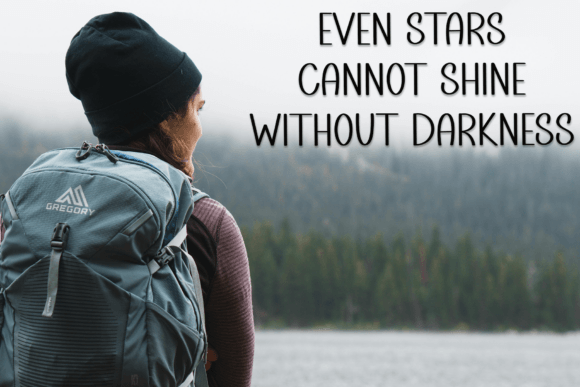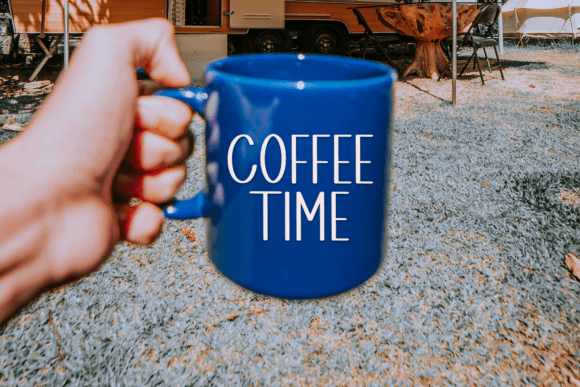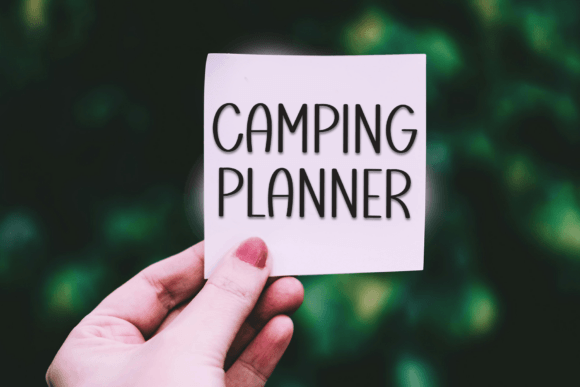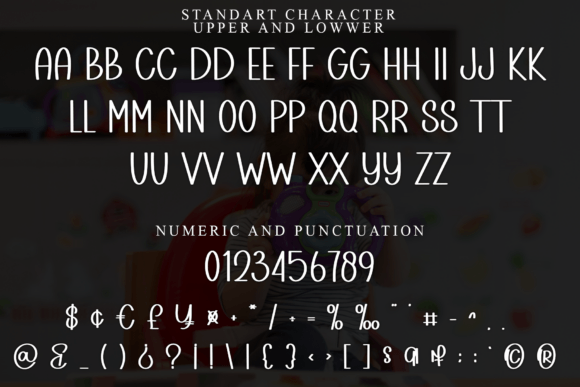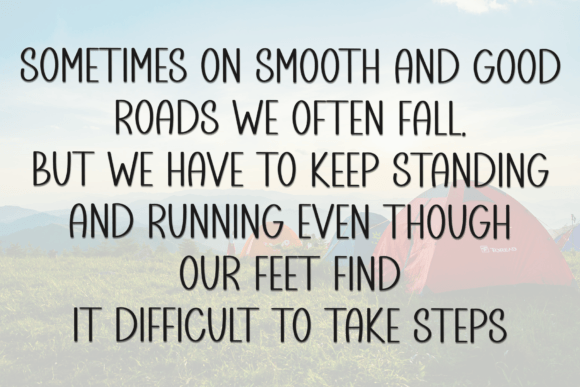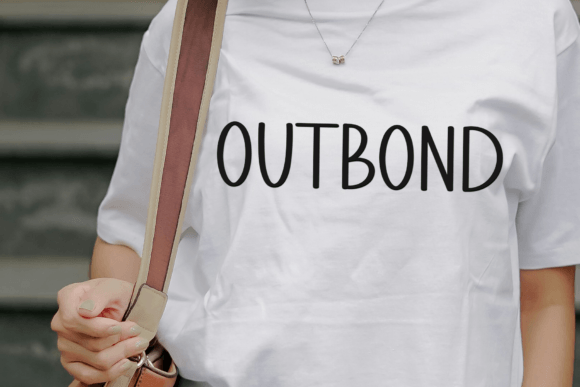
Introduction to Camping Drama Font
Camping Drama is a lovely and timeless handwritten font.
Key Features of Camping Drama Font
Why Choose Camping Drama Font?
Camping Drama Font offers exceptional quality and versatility, making it a valuable addition to your design toolkit. Whether you’re creating for personal projects or commercial use, Camping Drama Font delivers professional results.